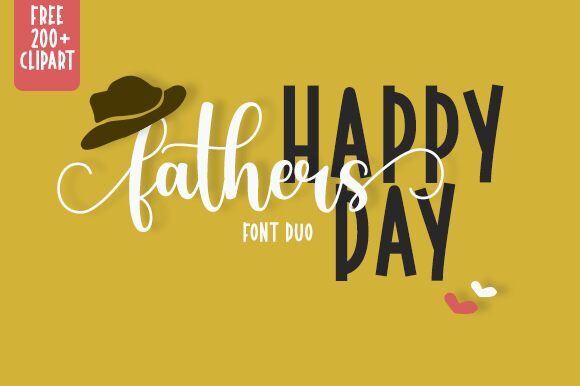
Fathers
Fathers font by Fillo Graphic is an elegant handwritten typeface with flowing curves and expressive strokes. Its design exudes artistic flair while maintaining a contemporary appeal, making it a perfect choice for creative projects seeking a stylish touch.
This free handwritten font is ideal for logo design, branding, product packaging, greeting cards, invitations, posters, social media graphics, website headers, book covers, wedding stationery or any project where an artistic touch is desired.